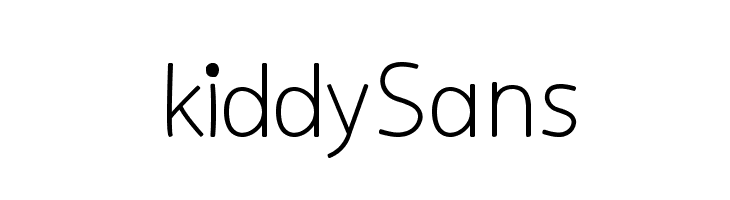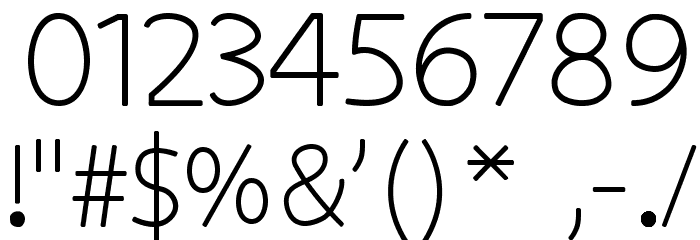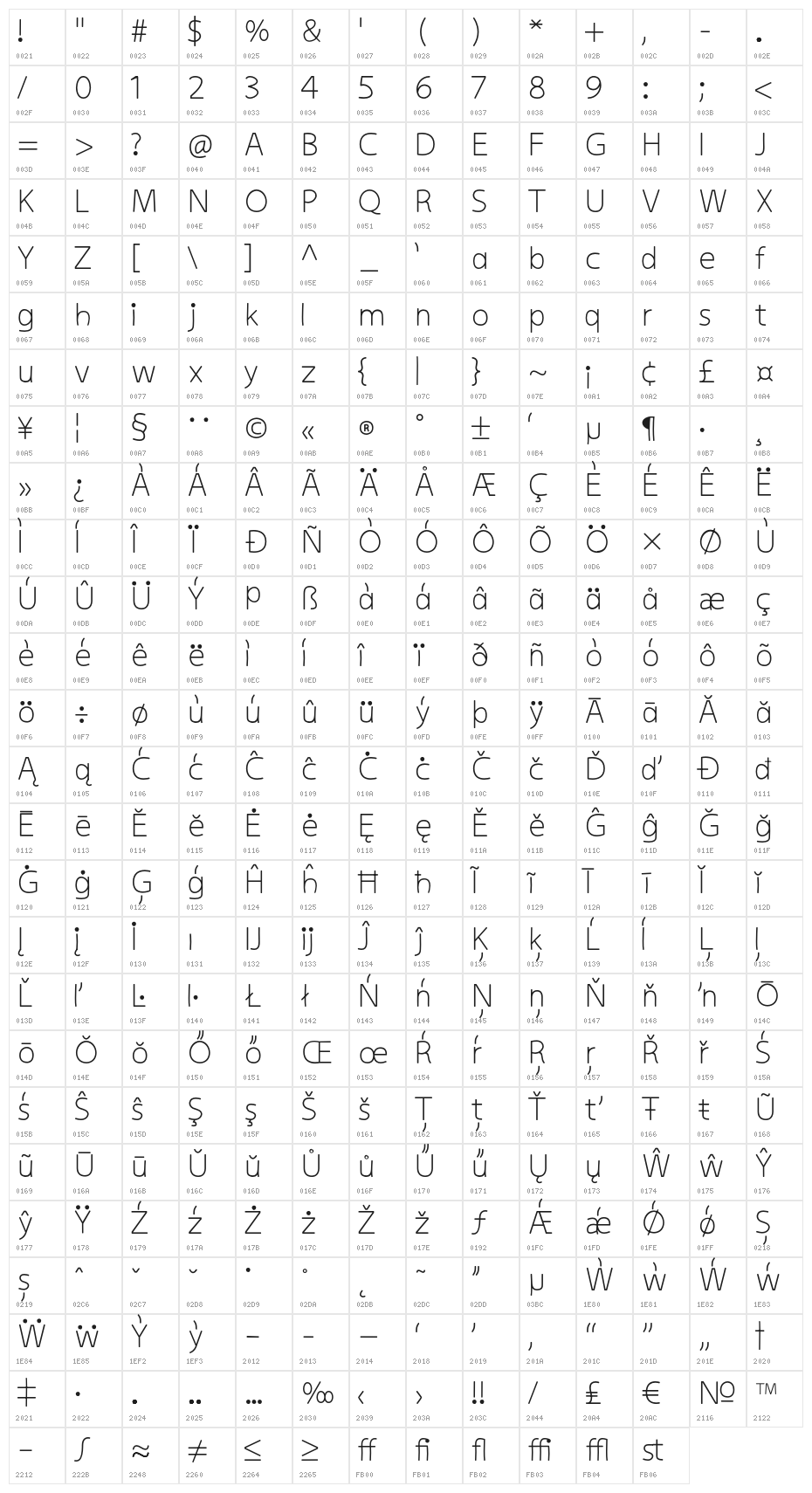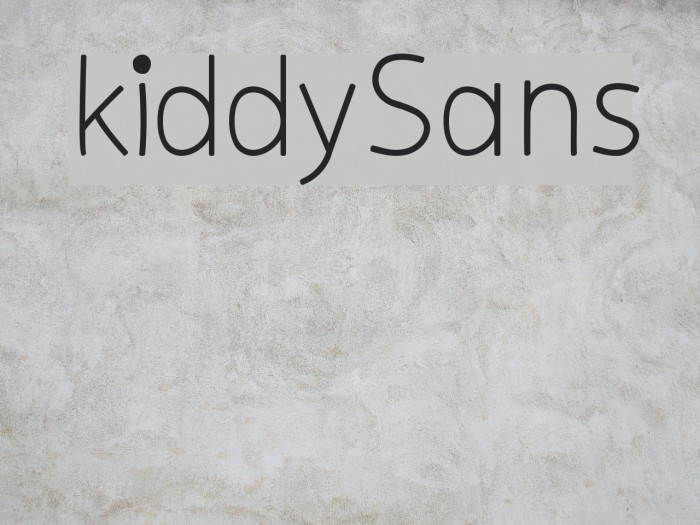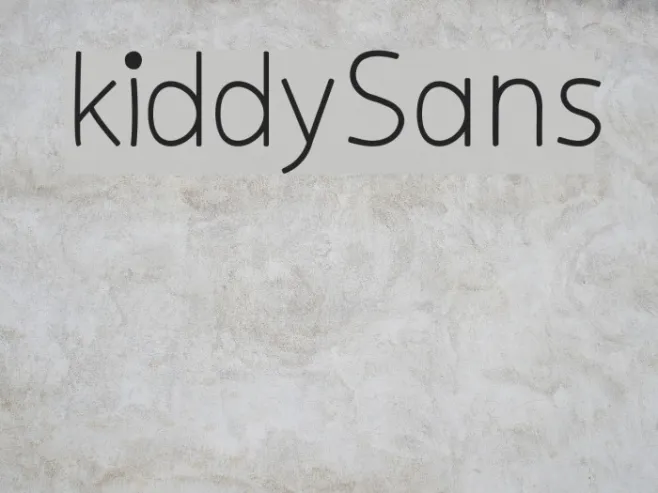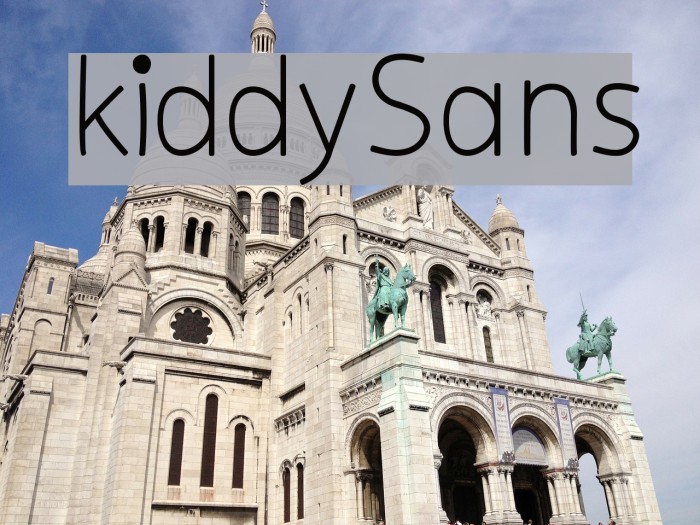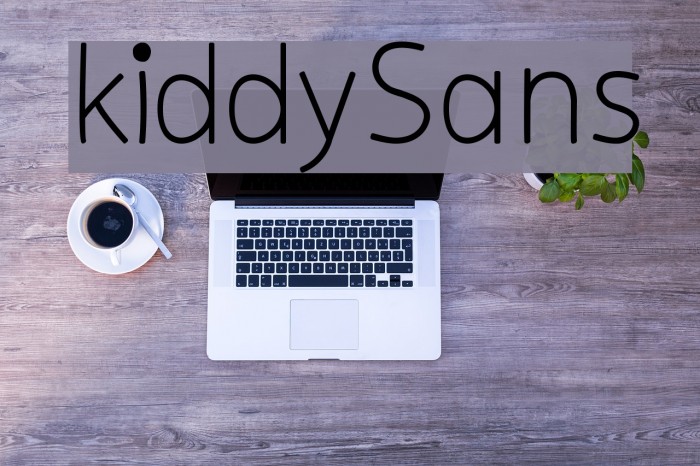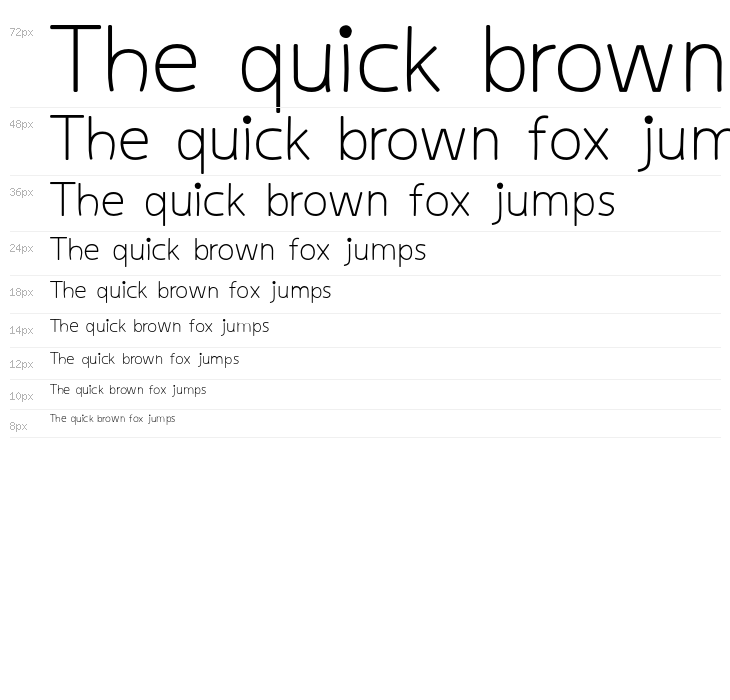
kiddySans Font
kiddySans Description
This font features a clean and modern sans-serif design with a playful touch. The characters are rounded and smooth, giving it a friendly and approachable appearance. The uppercase letters are slightly taller than the lowercase, maintaining a consistent line weight throughout. The numerals are clear and easy to read, while the special characters are well-integrated, ensuring versatility in various applications. The overall design is simple yet effective, making it suitable for a wide range of uses.
| Proposed Projects | Ideal for children's books, educational materials, playful branding, and digital content. |